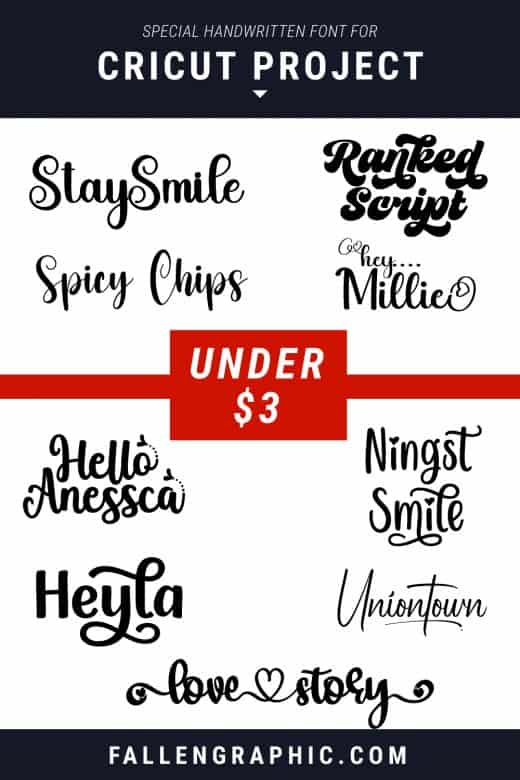
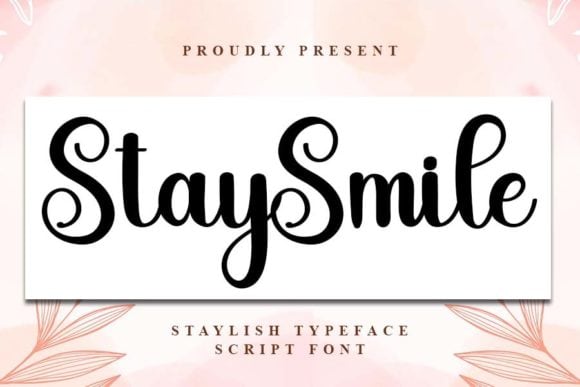
1. Stay Smile Font
Stay Smile is a delicate, elegant and flowing handwritten font. It has beautiful and well balanced characters and as a result, it matches a wide pool of designs. Add it to your most creative ideas and notice how it makes them come alive!
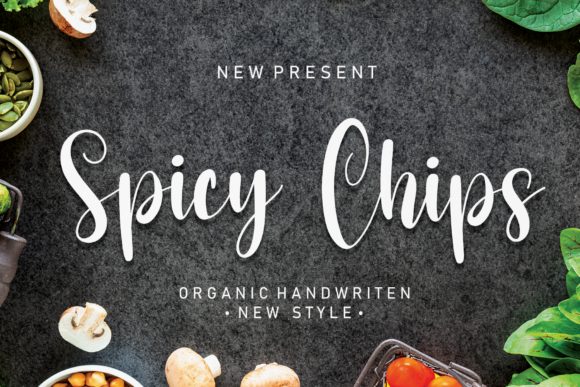
2. Spicy Chips Font
Spicy Chips is a beautiful and sweet calligraphy typeface with characters that dance along the baseline. It will add a luxury spark to any design project that you wish to create!
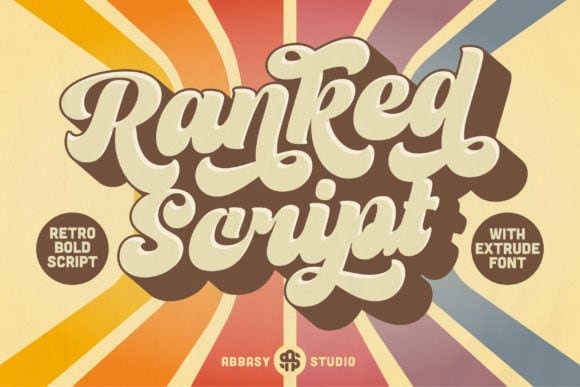
3. Ranked Script Font
Ranked Script is a gorgeous and bold handwritten font, crafted to give your headlines and logotype projects a retro touch. This font reads as strong, confident, and dynamic and can add tons of nostalgic character to your designs.
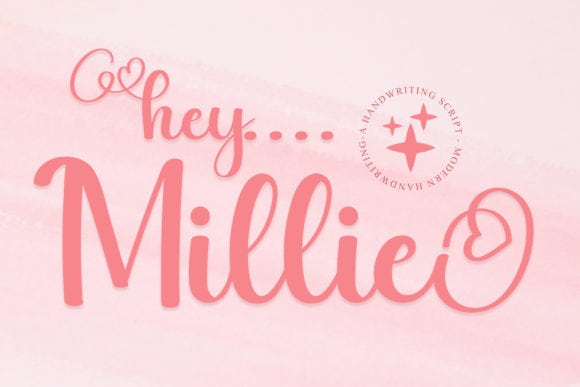
4. Hey Millie Font
Hey Millie is a romantic and sweet calligraphy typeface with characters that dance along the baseline. It will add a luxury spark to any design project that you wish to create! This font is PUA encoded which means you can access all of the amazing glyphs and ligatures with ease!
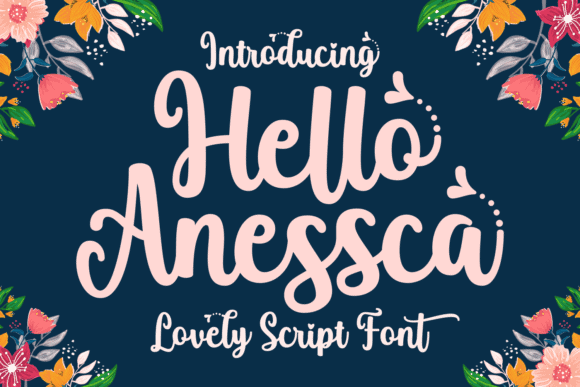
5. Hello Anessca Font
Hello Anessca is a lovely and delicate script font that exudes elegance and class. This font was particularly crafted for those who need a beautiful and refreshing look to their designs. Hello Anessca is PUA encoded which means you can access all glyphs and swashes with ease!
6. Love Story Font
Love Story is a lovely and delicate script font that exudes elegance and class. This font is PUA encoded which means you can access all glyphs and swashes with ease!
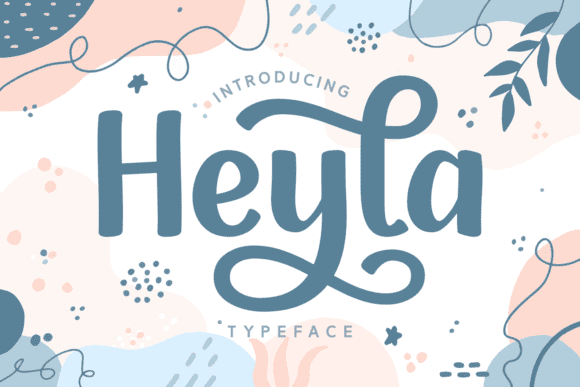
7. Heyla Font
Heyla is a lovely script font featuring charming, playful characters that seem to dance along the baseline. This font is PUA encoded which means you can access all of the glyphs and swashes with ease!
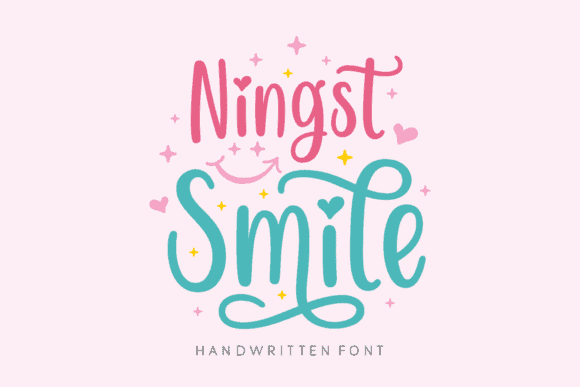
8. Ningst Smile Font
Ningst Smile is a whimsical and lovely handwritten font. Its sweet and full of life style makes this font a wonderful choice for brightening up your designs.
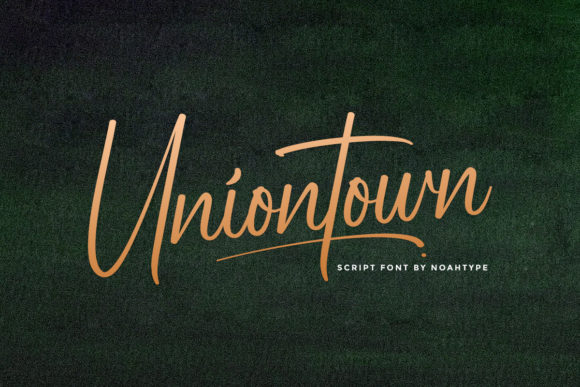
9. Uniontown Font
Uniontown is a lovely script font featuring charming, playful characters that seem to dance along the baseline. This font is PUA encoded which means you can access all glyphs and swashes with ease!
10. Winter Snow Font
Winter Snow is a flowing handwritten font, described by an elegant touch, perfect for your favorite projects. Fall in love with its incredibly distinct and timeless style and use it to create spectacular designs!